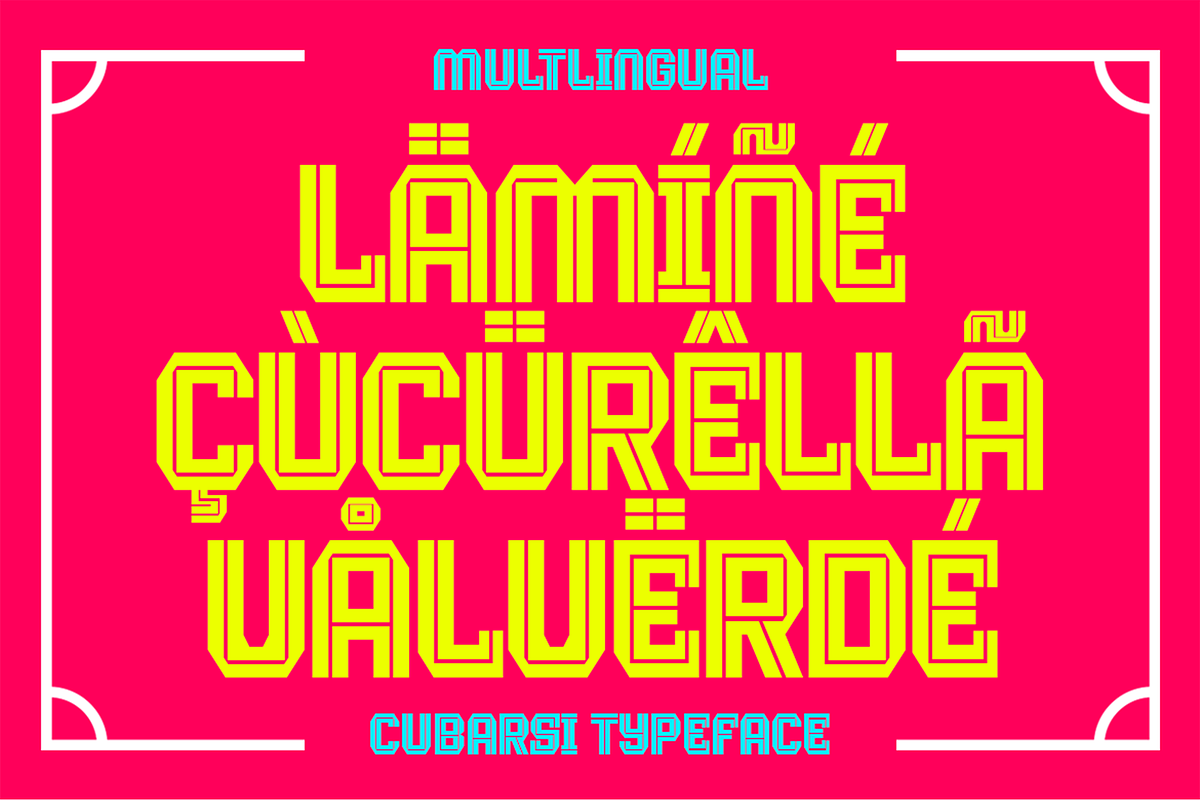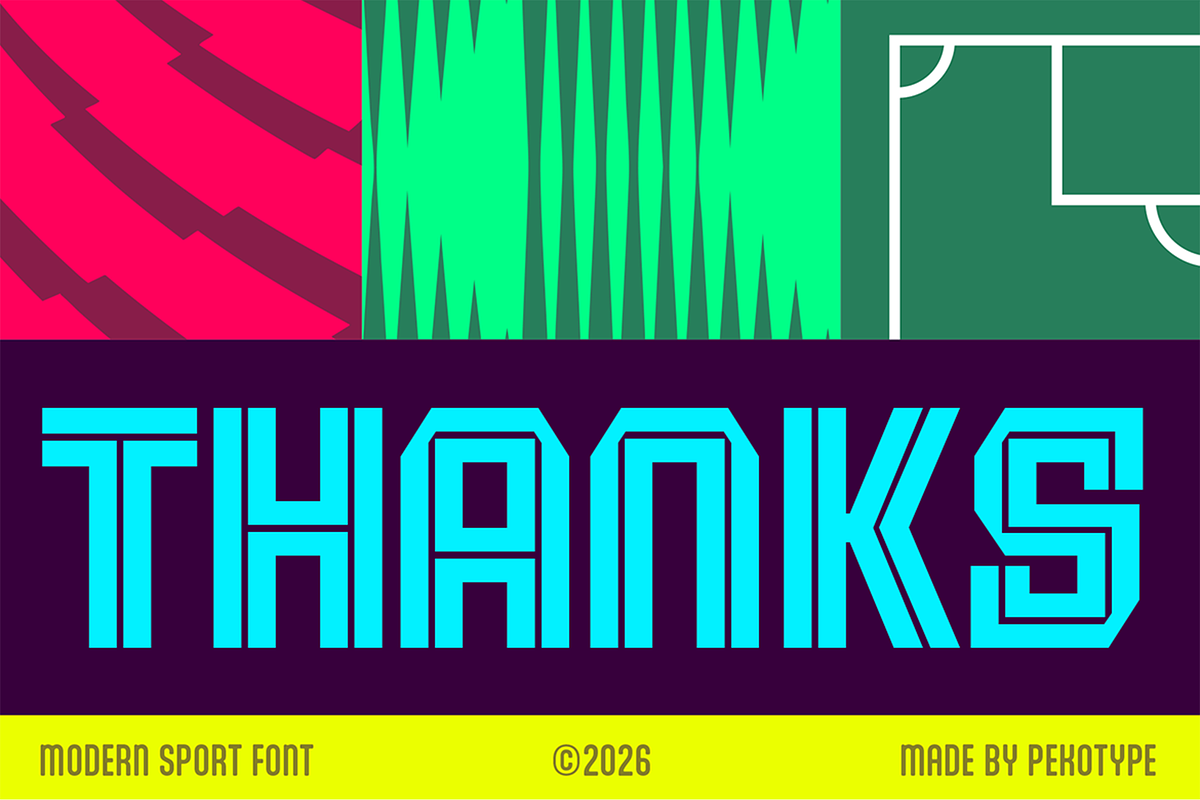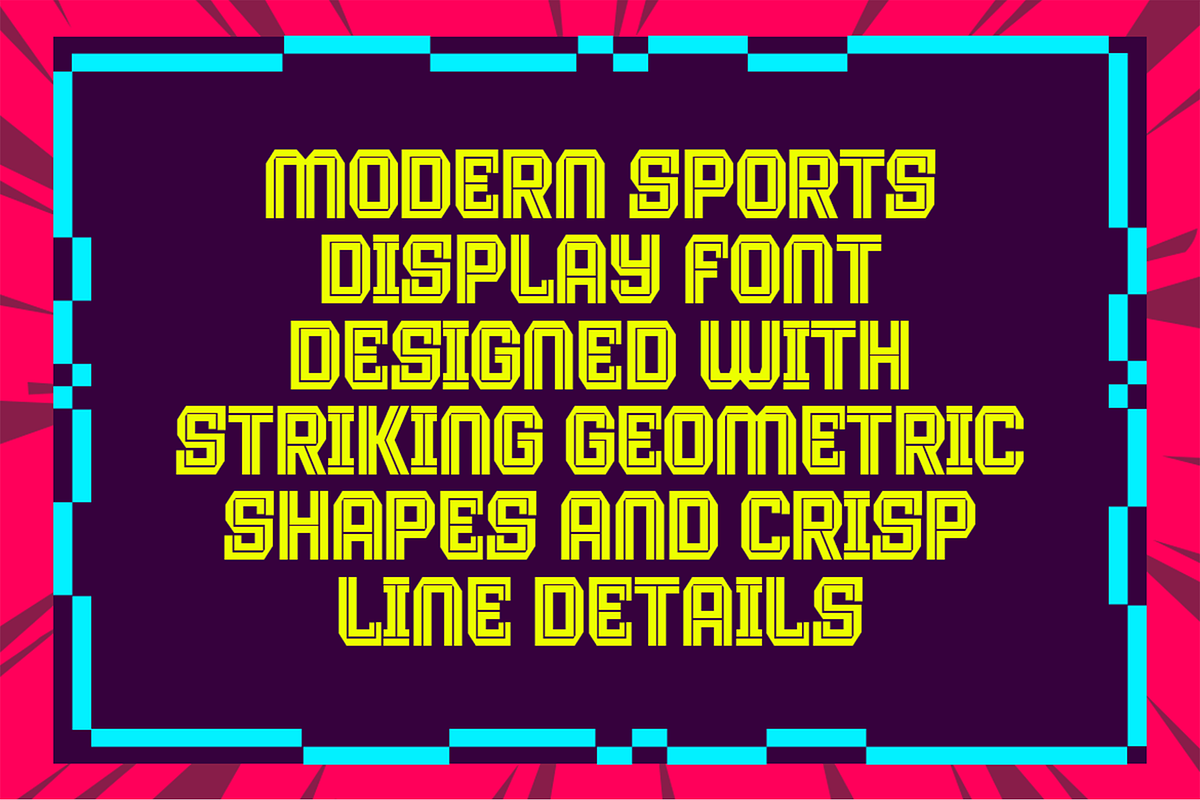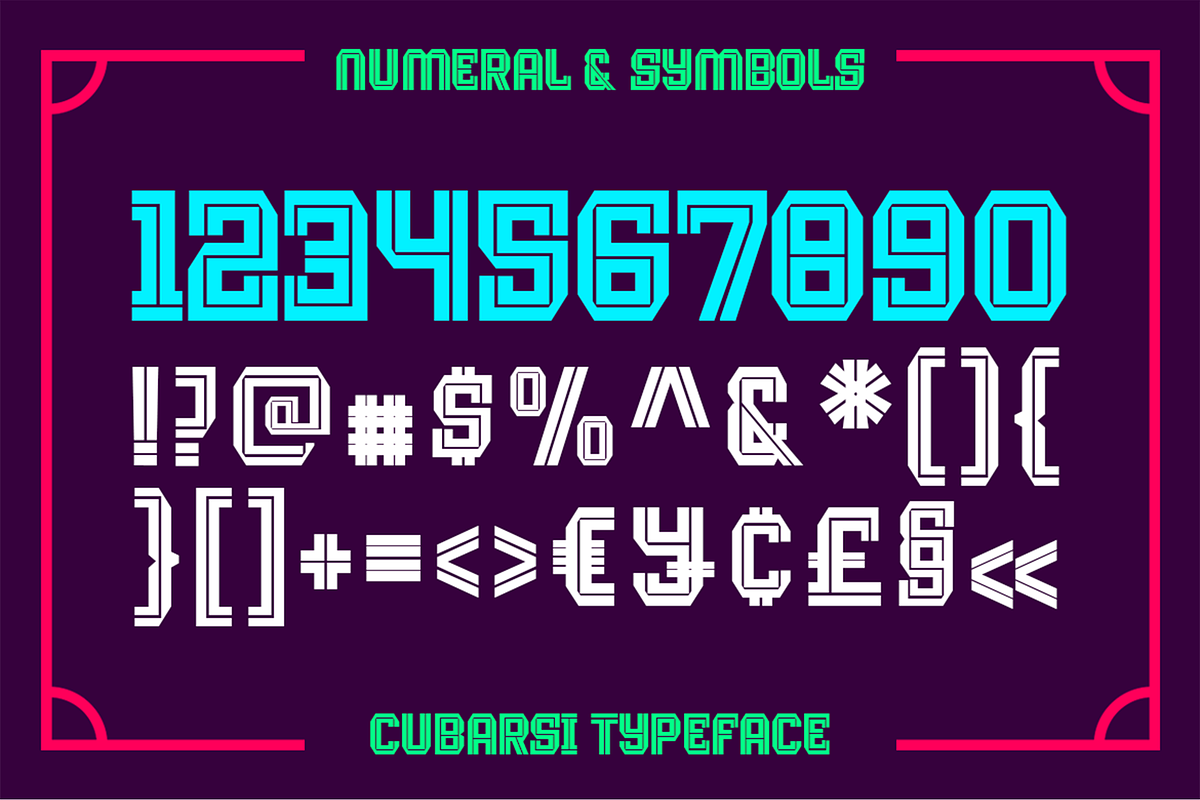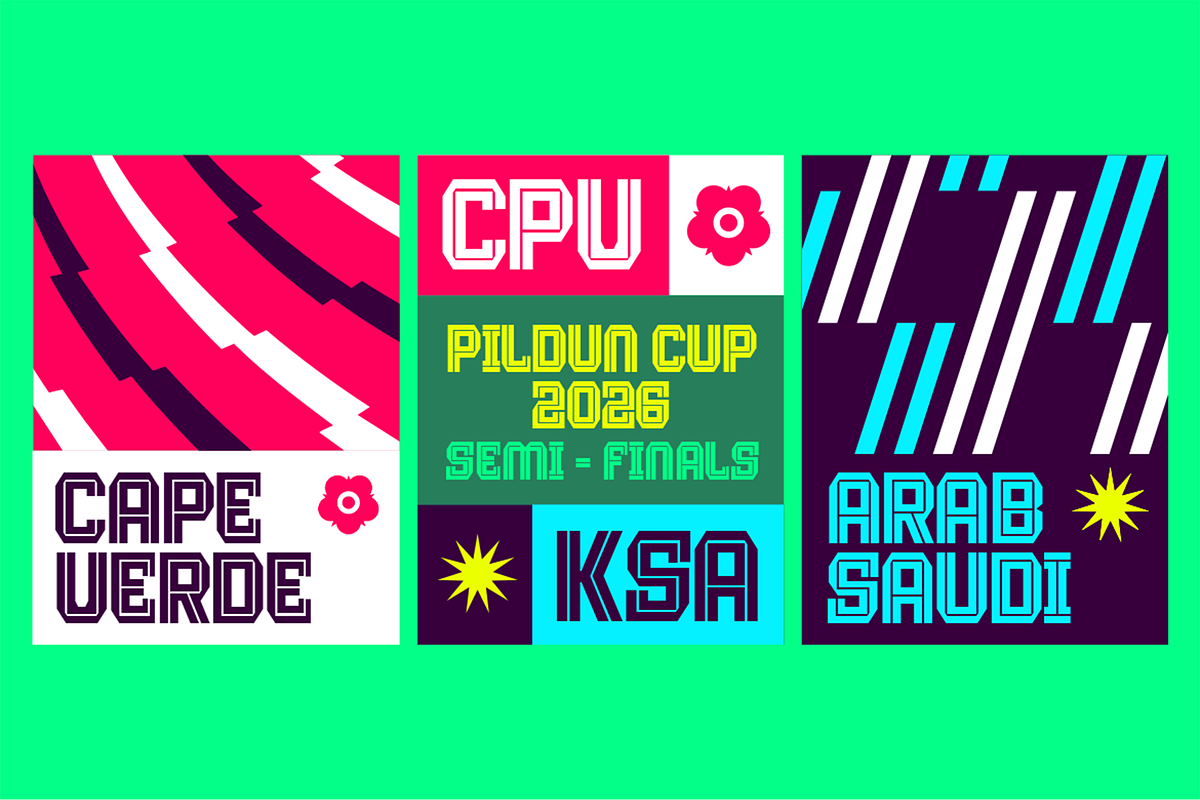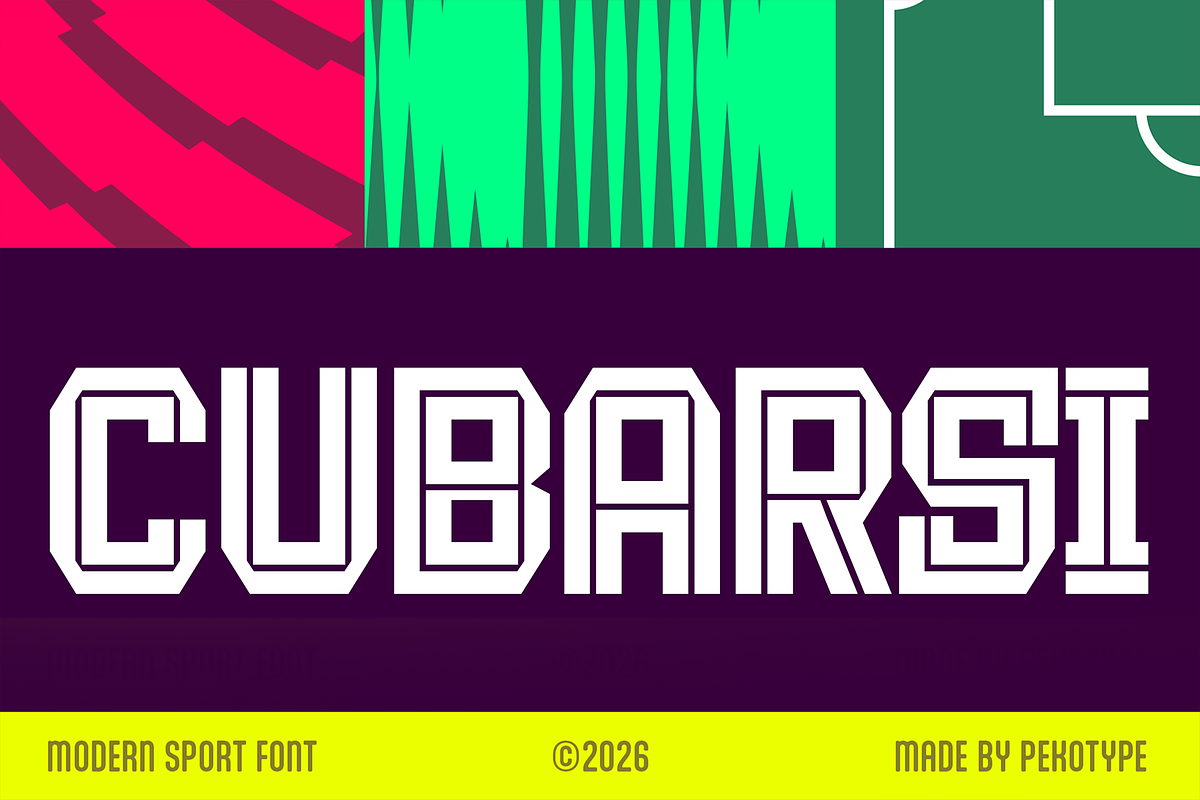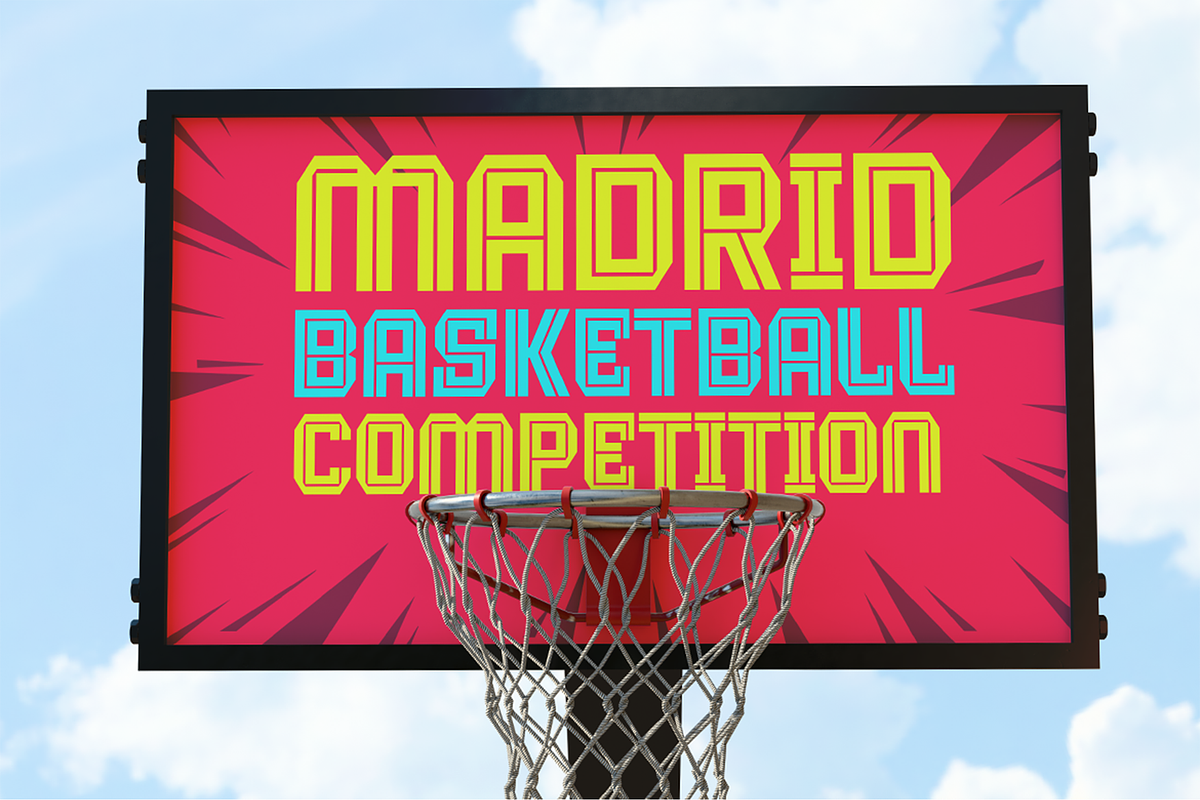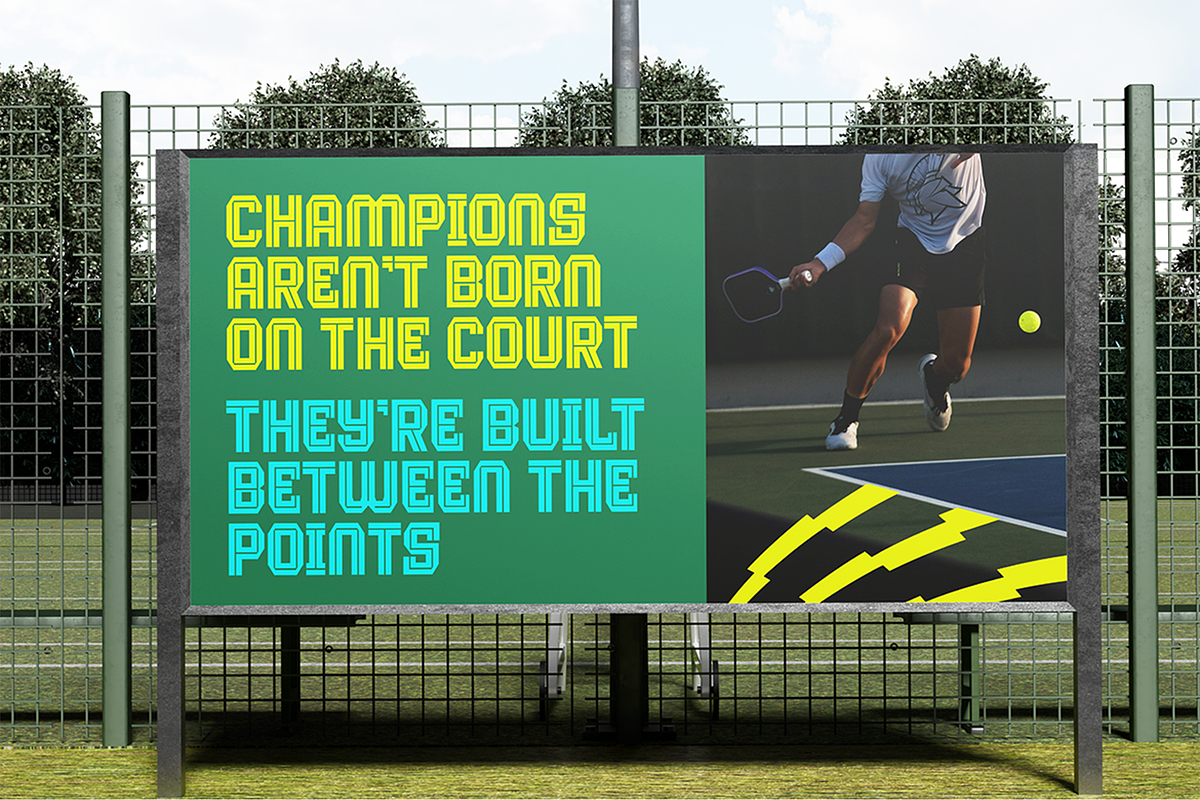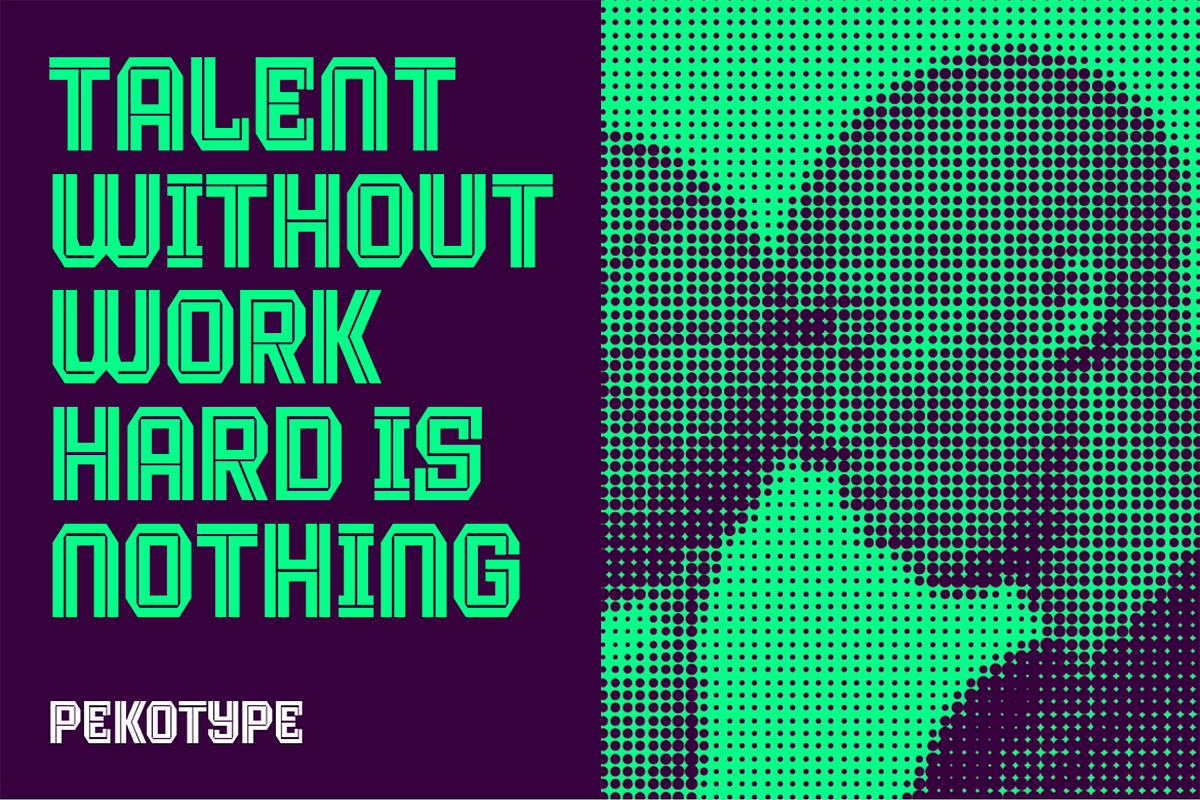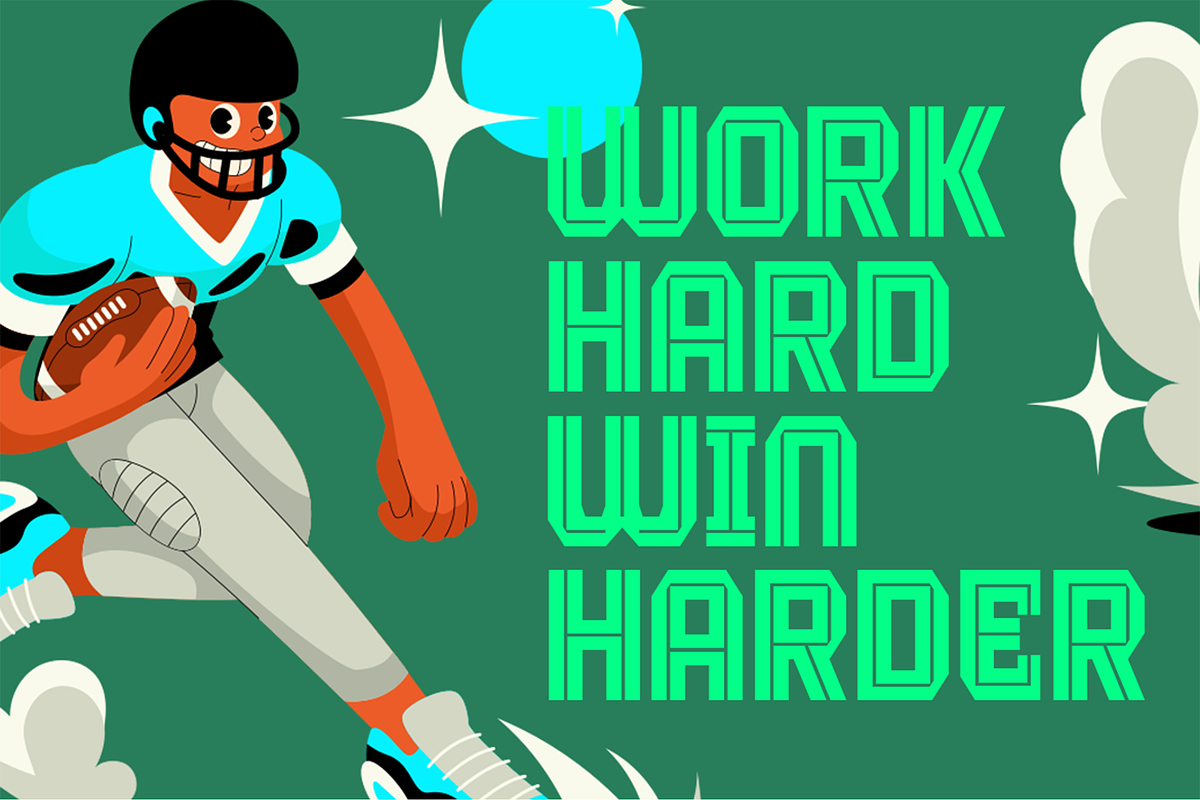
Cubarsi - Sport Jersey Display Font
Cubarsi is a sport jersey display font inspired by modern athletics, football, and esports visuals. Its geometric shapes, sharp corners, and clean line details create a bold look that grabs attention and keeps every headline strong and easy to read.
Perfect for sports jerseys, team branding, football clubs, esports graphics, tournament posters, scoreboards, event banners, logos, social media, YouTube thumbnails, merchandise, apparel, and any project that needs a modern sports display font with high impact.
* Uppercase & Lowercase
* Numbers, Symbols, & Punctuation
* Multilingual